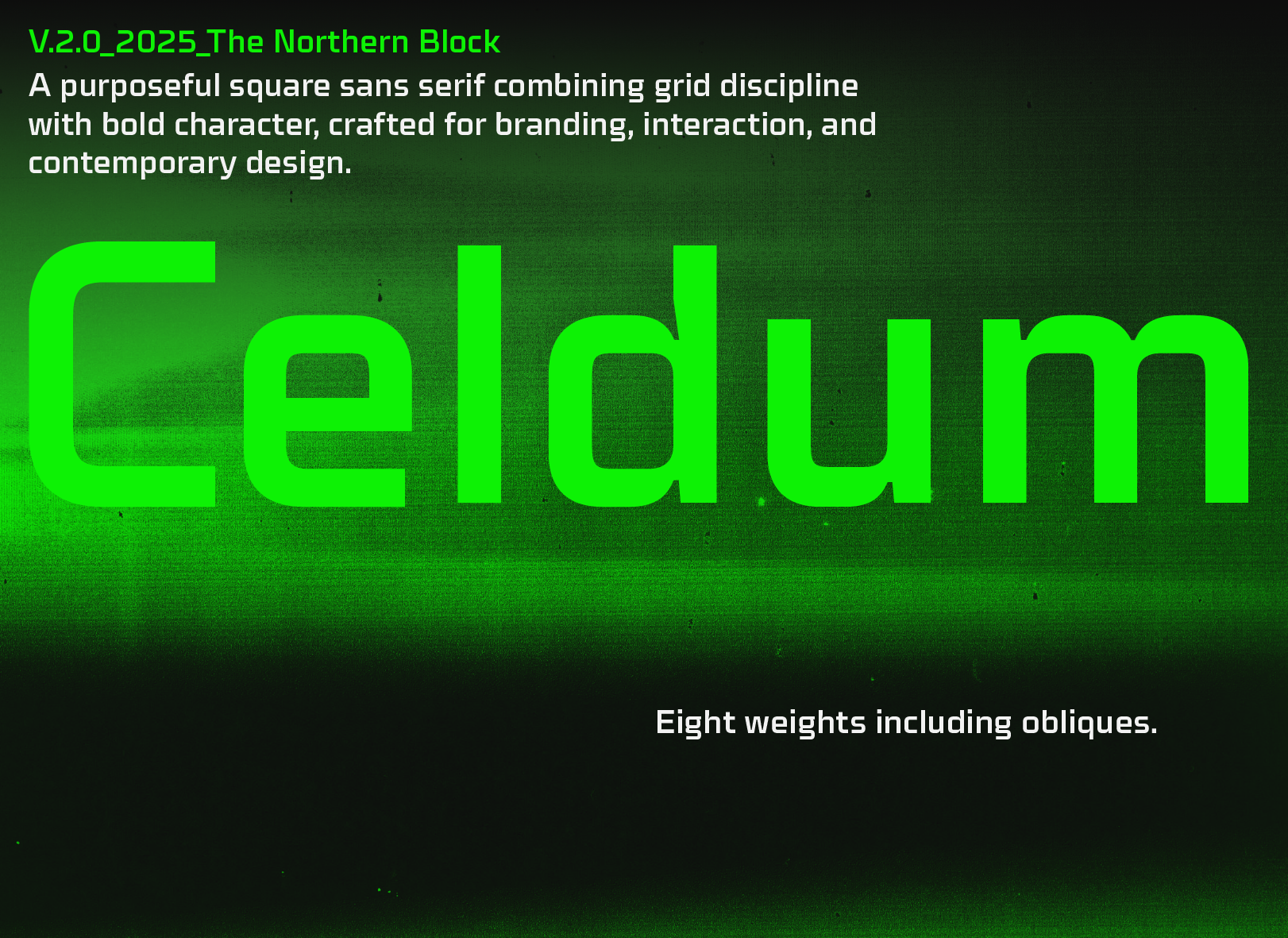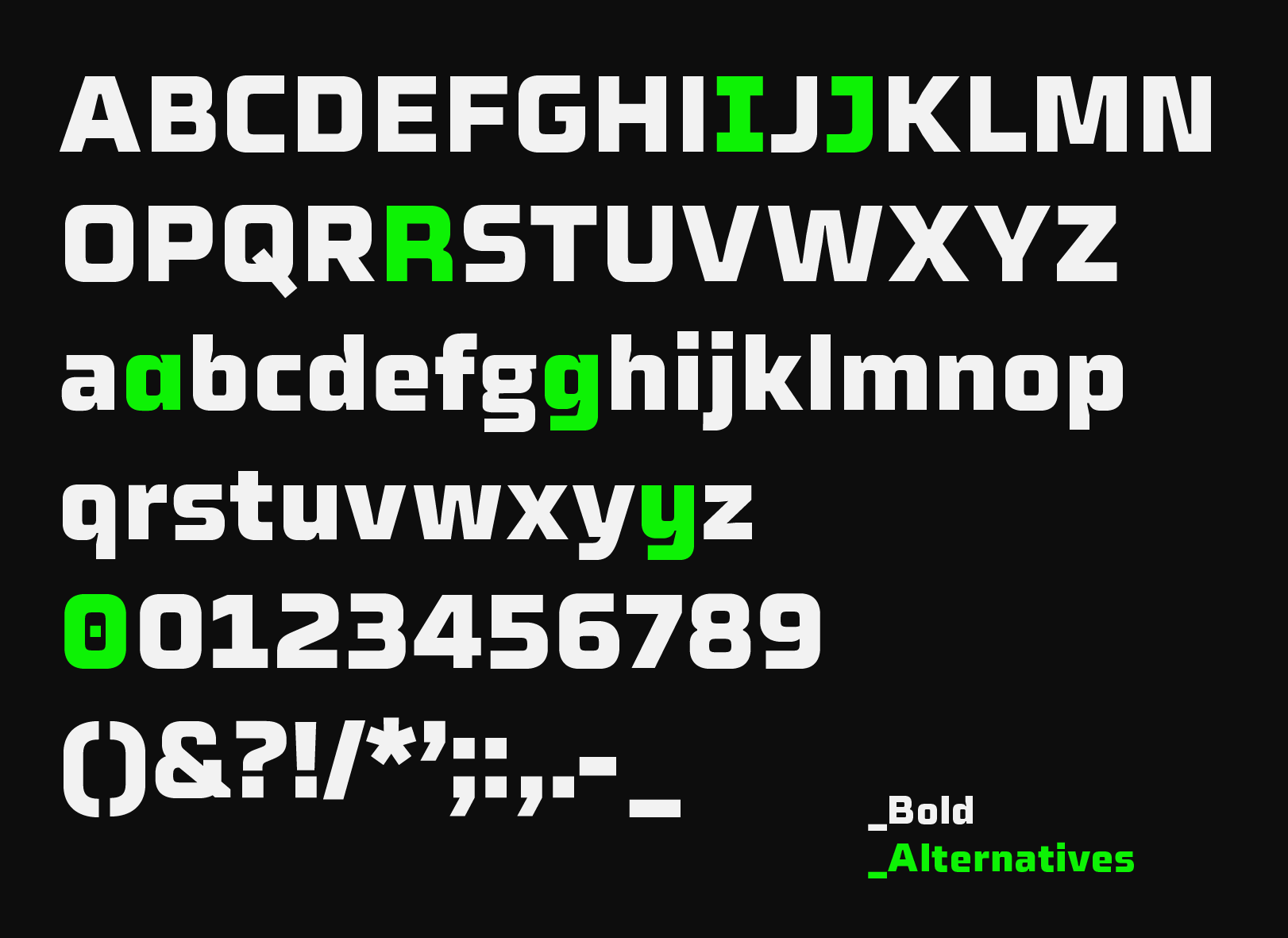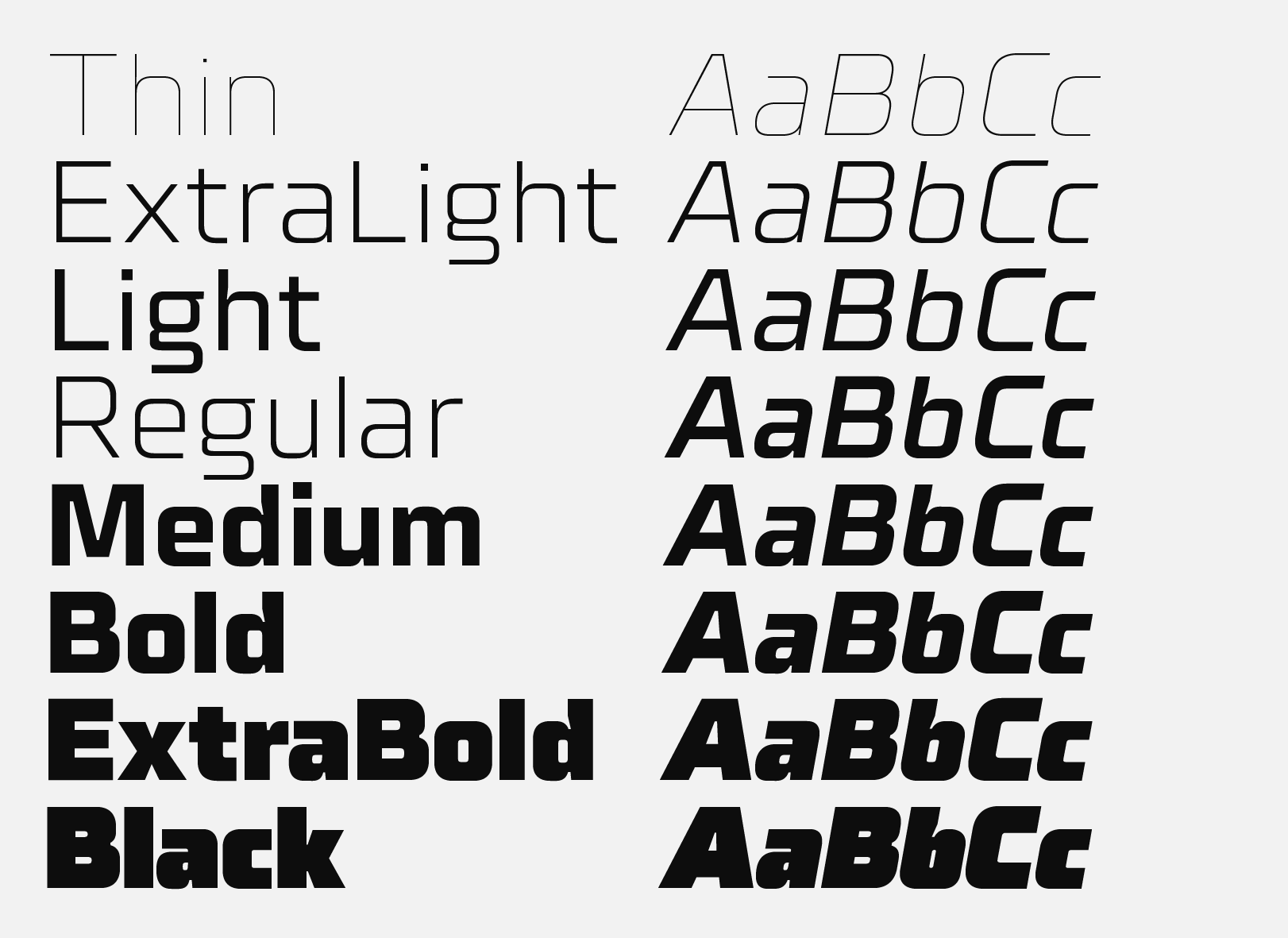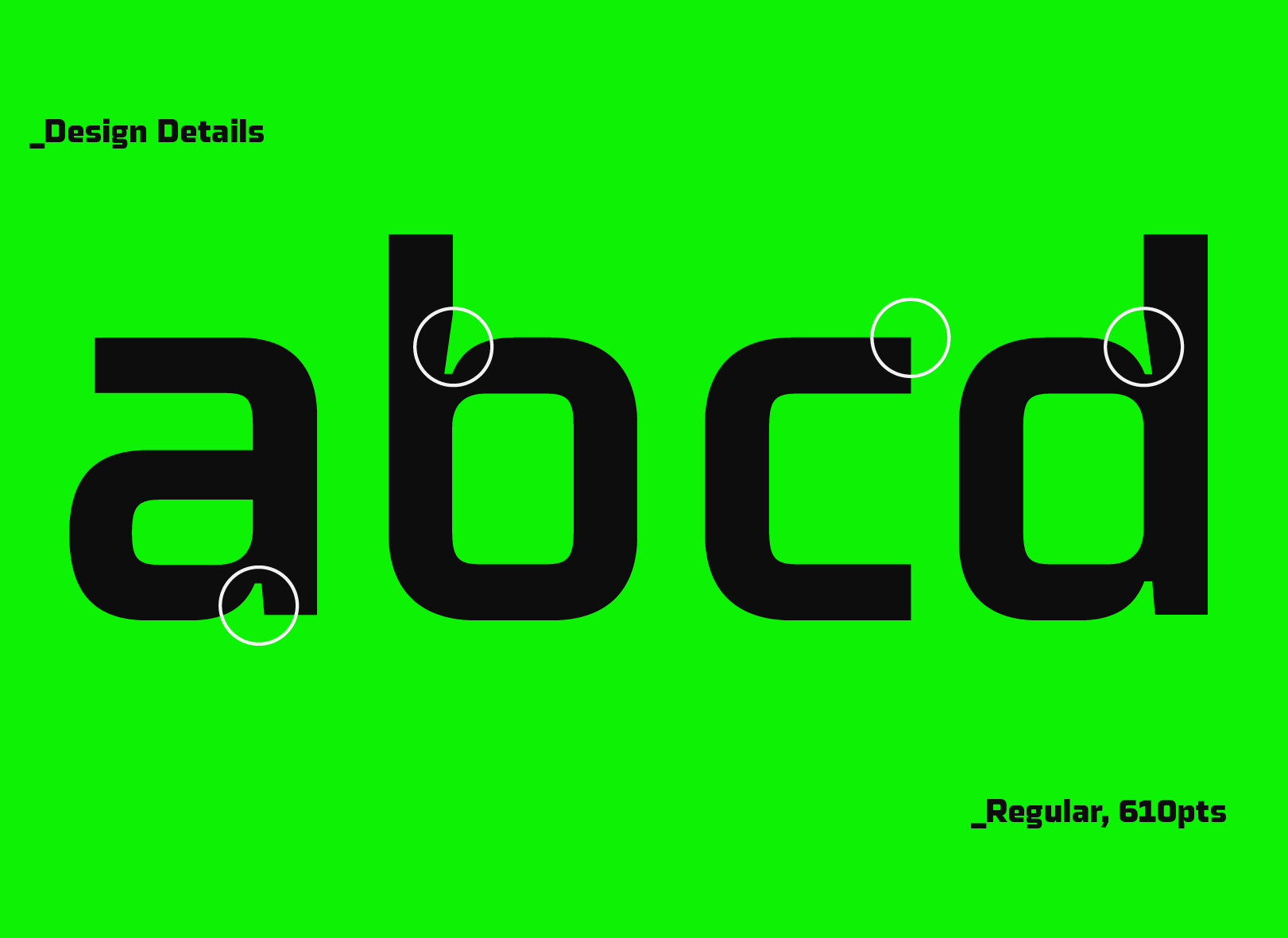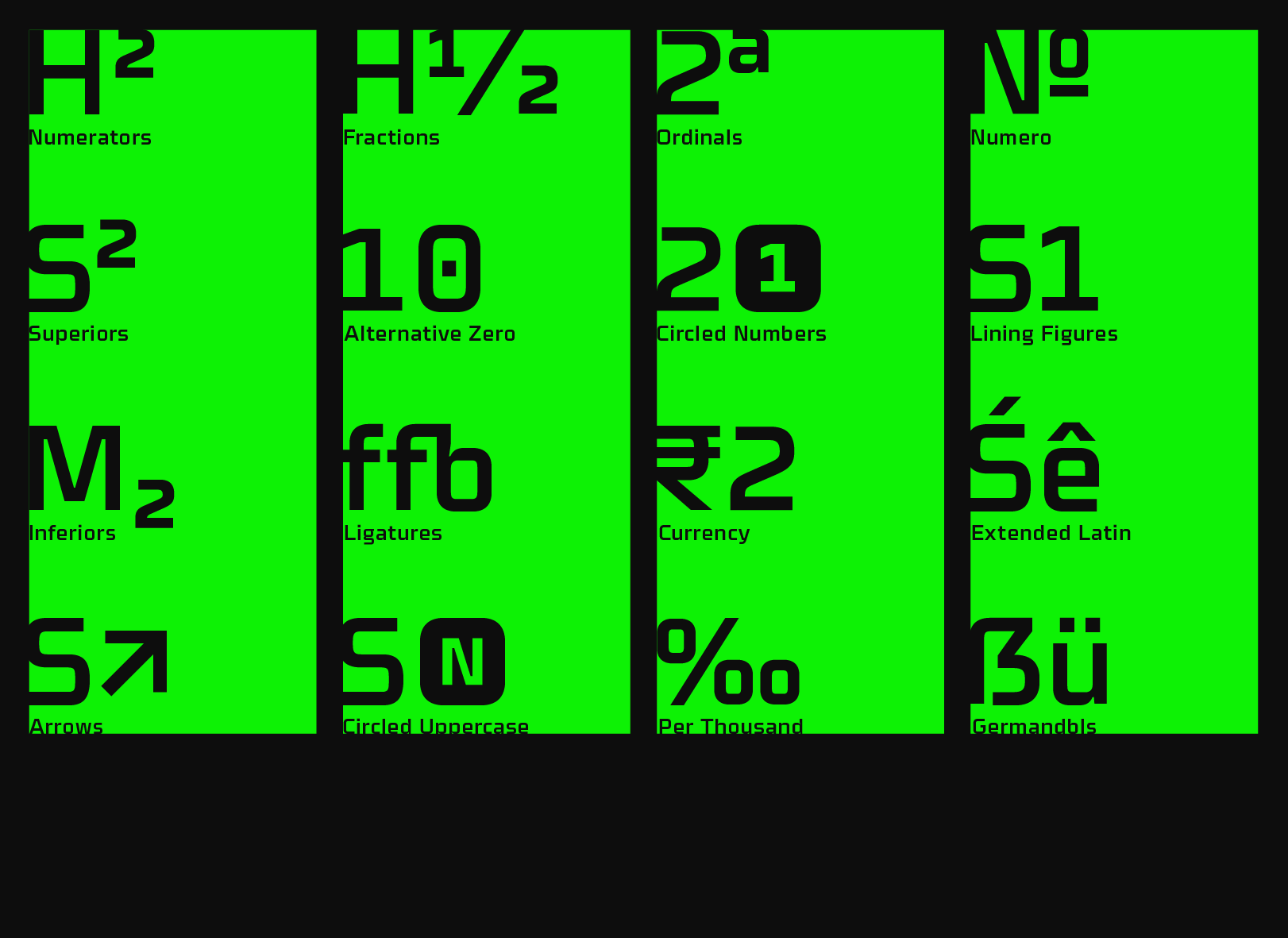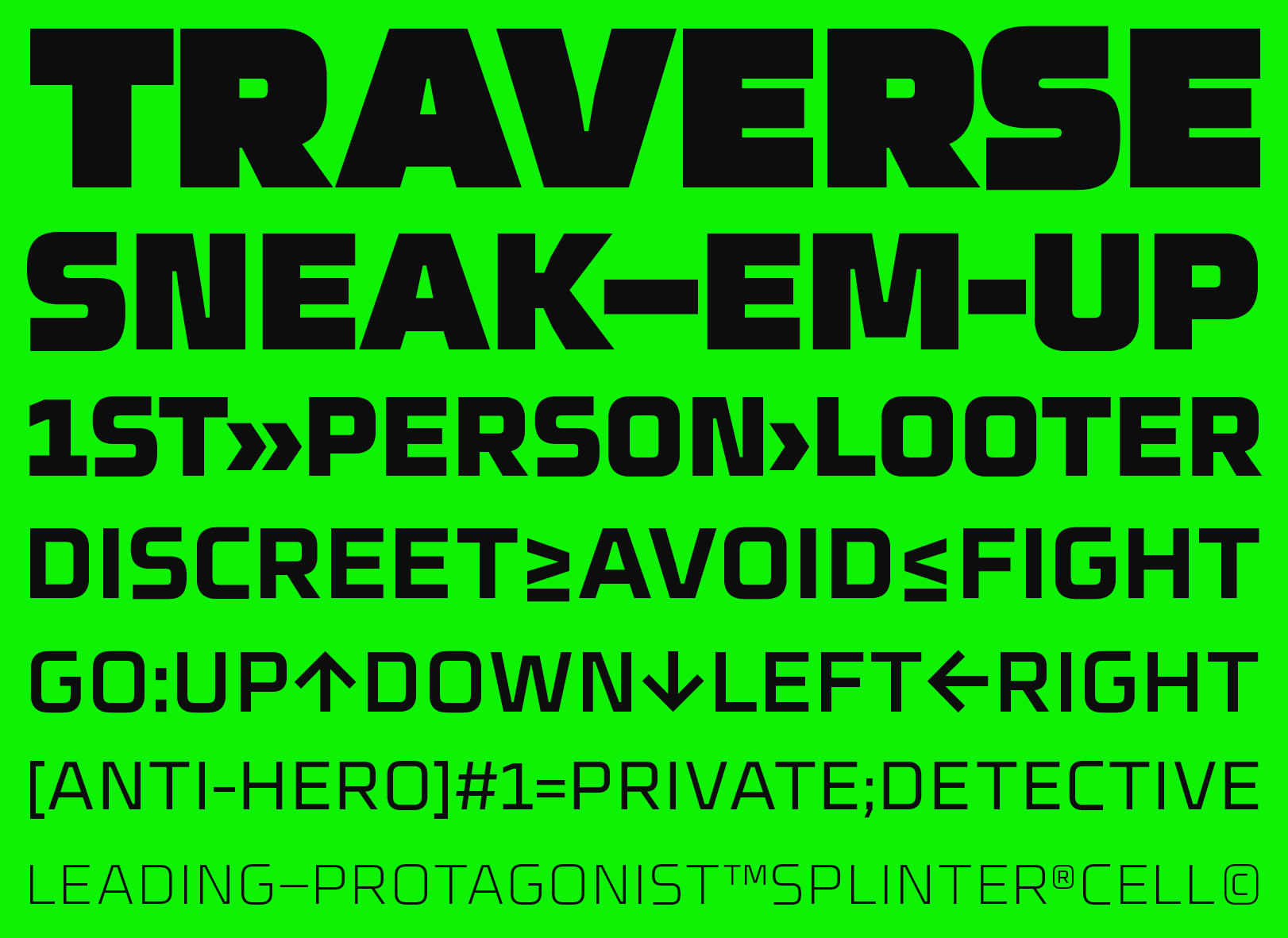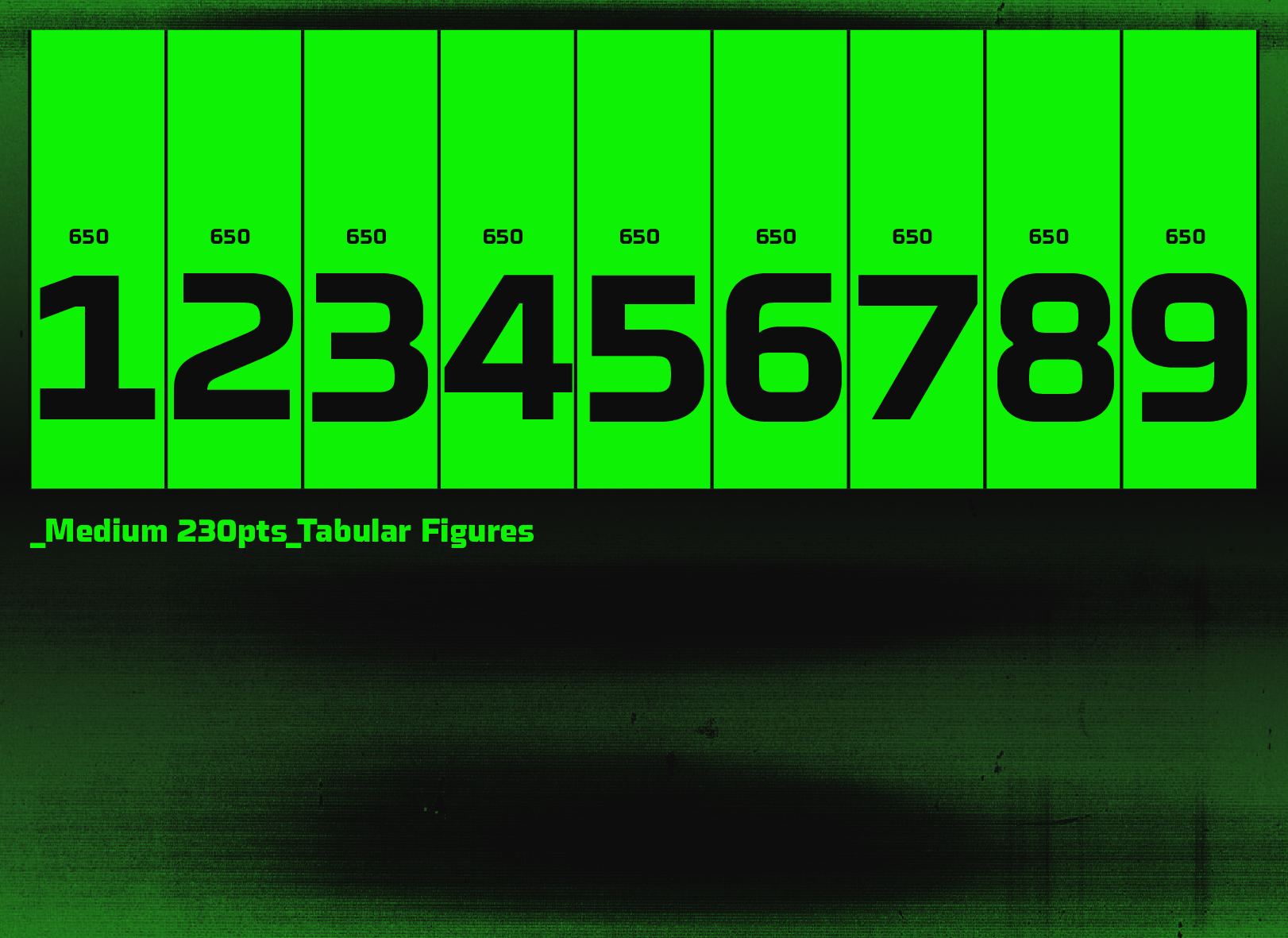
Celdum
Celdum is a square sans serif shaped by the discipline of a rectangular grid. Its forms balance smooth curves with strict verticals and horizontals, producing a mono-line design that feels both engineered and purposeful. Rounded corners soften the geometry just enough to keep it approachable, while maintaining a clear mechanical tone.
Version 2.0 takes the idea further. Ink-traps add sharper detail and a more industrial character, while improving clarity at small sizes. The boldest weight has been reinforced for striking impact in headlines and display settings. Obliques replace traditional italics, staying true to the geometry of the uprights and providing a consistent system of emphasis.
Details include eight weights with matching obliques, each containing over 600 glyphs. OpenType features include multiple numeral styles, fractions, ordinals, case-sensitive forms, stylistic sets, and a broad range of symbols and arrows. Celdum 2.0 is designed as a versatile toolkit for branding, mobile apps, video games, signage, and interactive media.